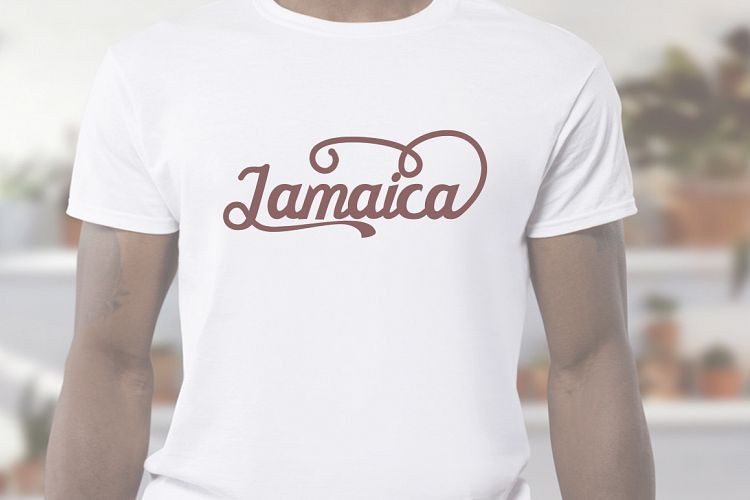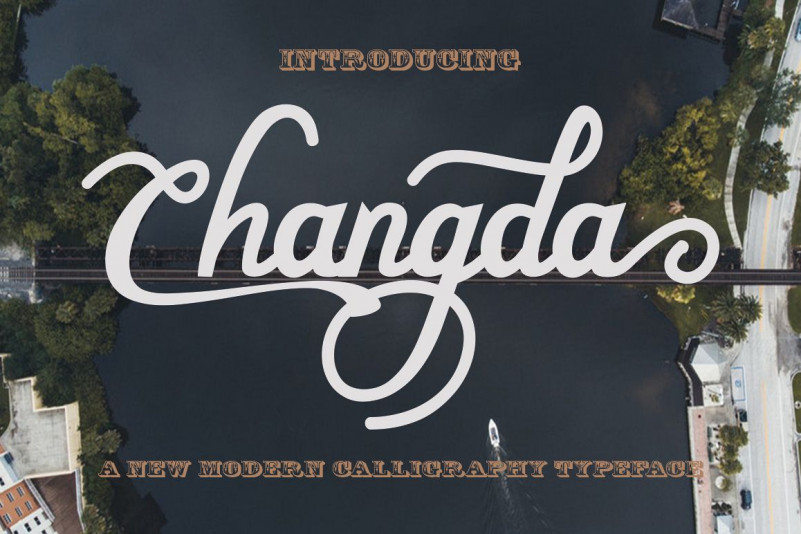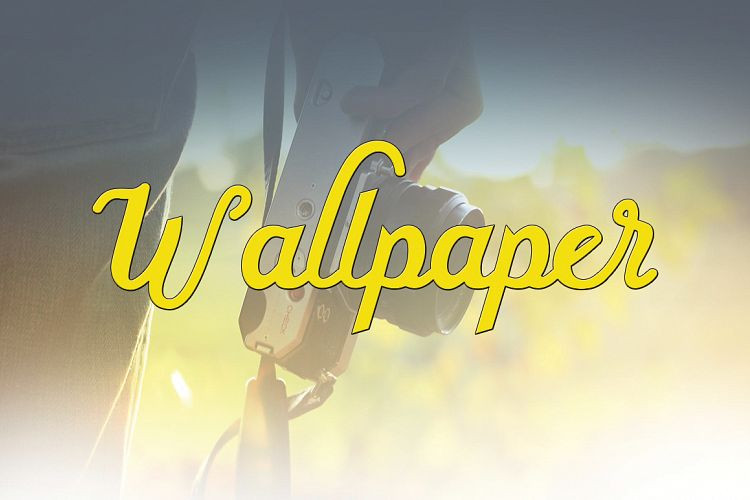
Changda Script Font
Changda a fonts of Changda stylish calligraphy that have a varied base line, fine lines, classic and elegant touches. Can be used for various purposes. Such as title, signature, logo, wedding invitation, t-shirt, letterhead, nameplate, label, news, poster, badge etc.
Changda displays stylish calligraphy  alternate characters. Includes initial letters and terminals, alternatives, ligatures and multiple language support.